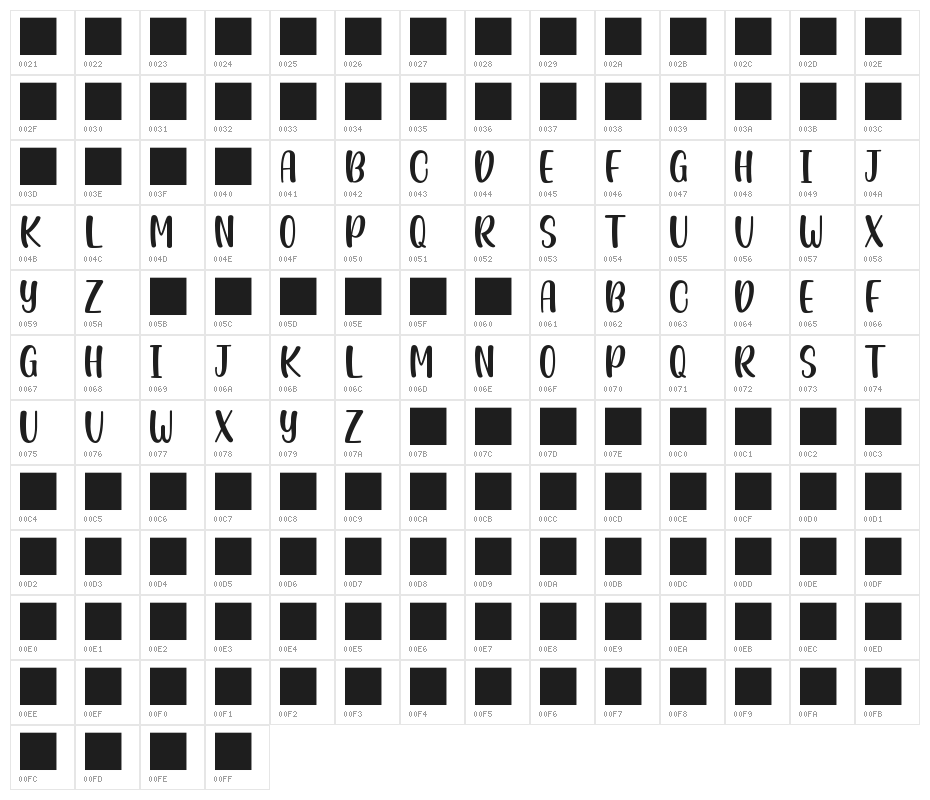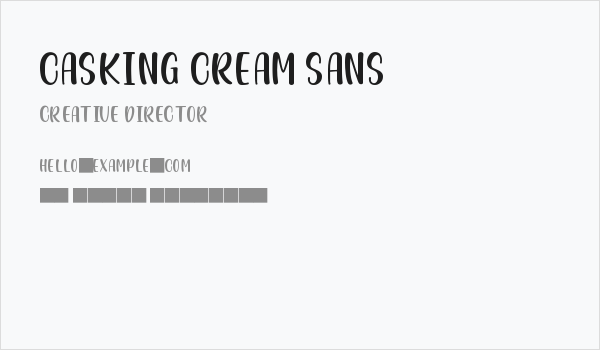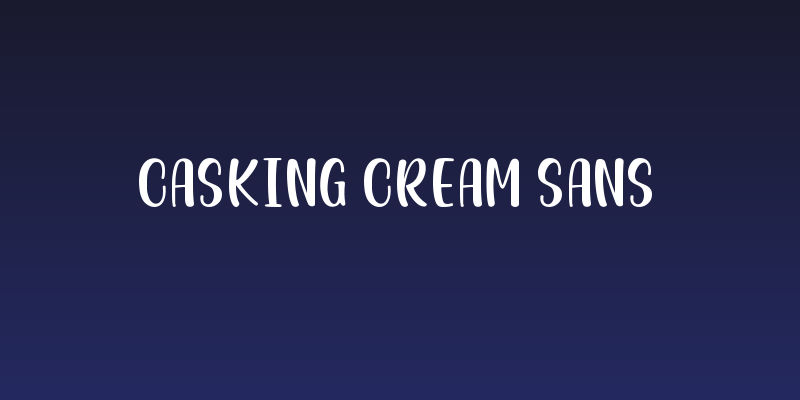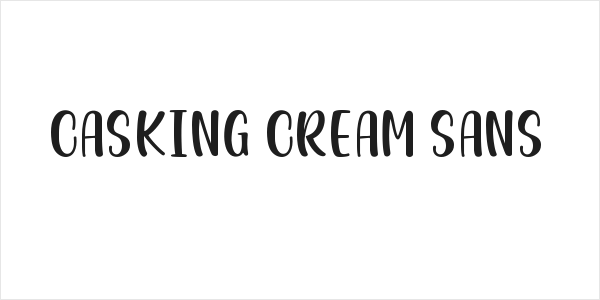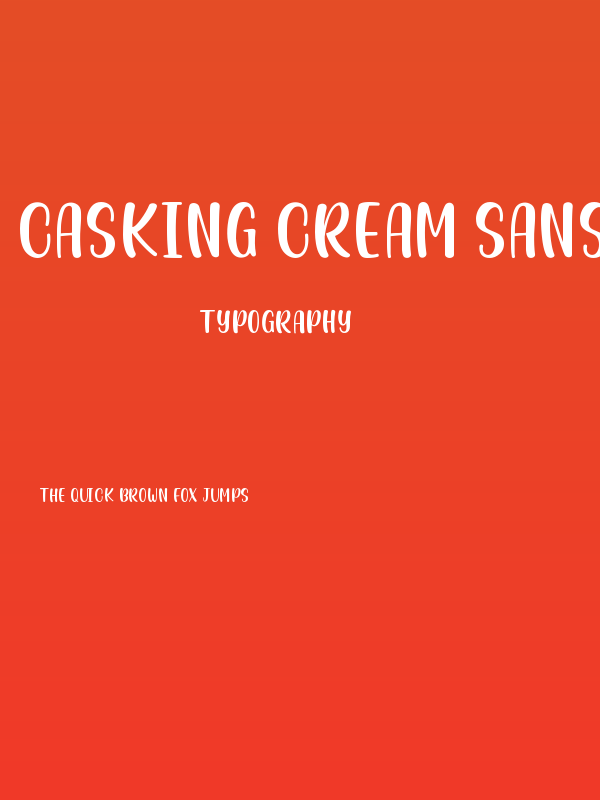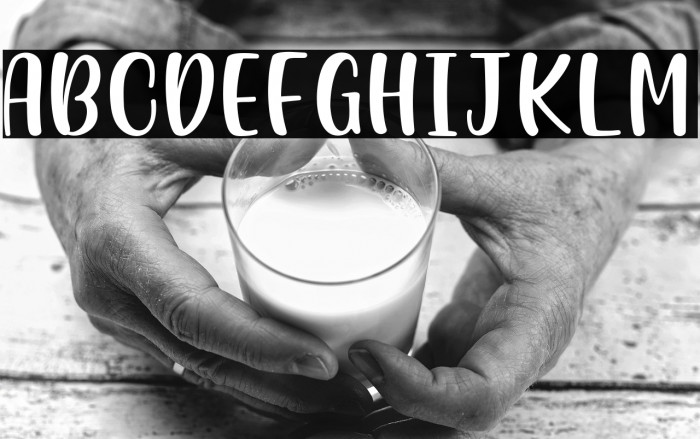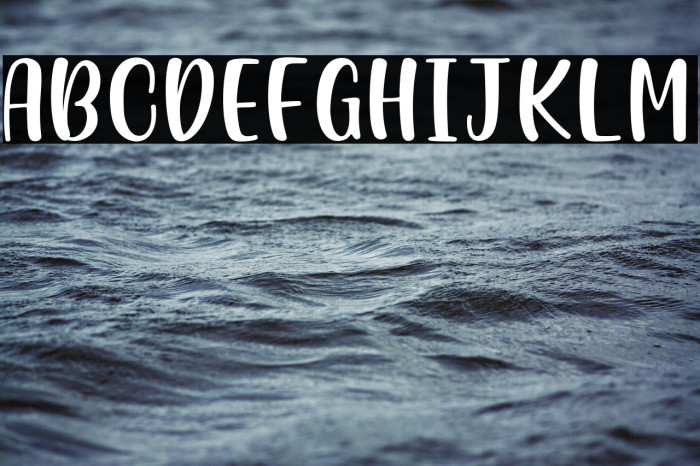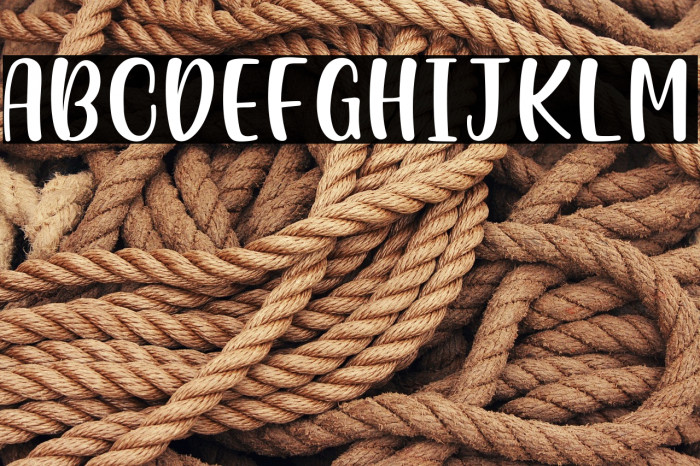
Casking Cream Sans Font
Casking Cream Sans Description
This font features a playful and bold design with a handwritten style that exudes a sense of fun and creativity. The characters are rounded and slightly slanted, giving them a dynamic and lively appearance. The uppercase letters are consistent in height, while the lowercase letters maintain a uniform baseline, enhancing readability. The strokes are thick and consistent, providing a strong visual impact. This font is ideal for projects that require a friendly and approachable look, such as children's books, greeting cards, or playful branding materials.
| Proposed Projects | Ideal for children's books, greeting cards, playful branding, and creative posters. |